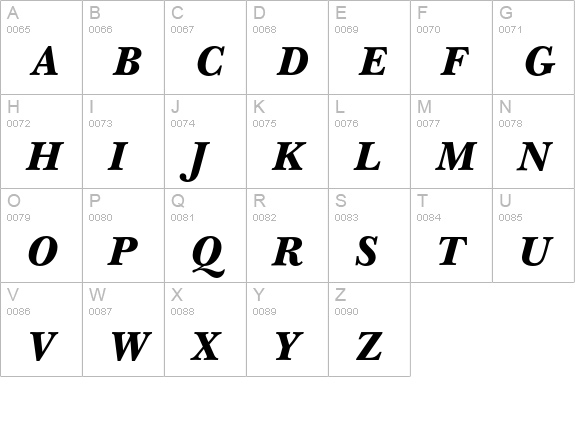
New Baskerville* Black Italic Font Details
New Baskerville* Black Italic is a maximum-weight, dramatic, italic variant in the New typeface family \xE2\x80\x94 well suited to maximum-impact headlines, posters, and packaging.
New Baskerville* Black Italic font is a bold and elegant typeface that exudes sophistication and class. With its sleek and stylish design, this font is perfect for adding a touch of luxury to your designs. The italicized version of New Baskerville* Black adds a sense of dynamism and flair, making it stand out from the crowd. Best of all, this font is available for free download at FontsMarket.com, making it easily accessible to all designers and enthusiasts. Whether you're working on a project that requires a touch of refinement or simply want to elevate your designs, New Baskerville* Black Italic font is the perfect choice. Download it today and add a touch of elegance to your creations.